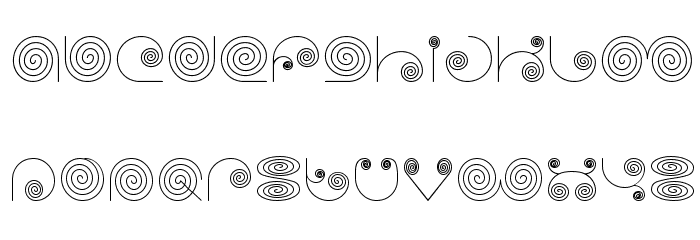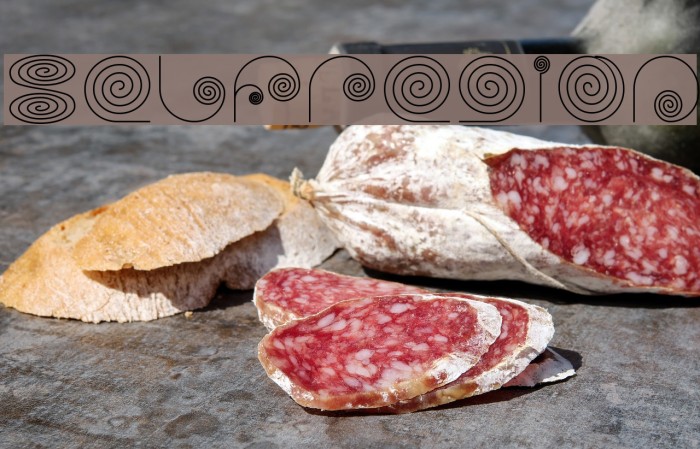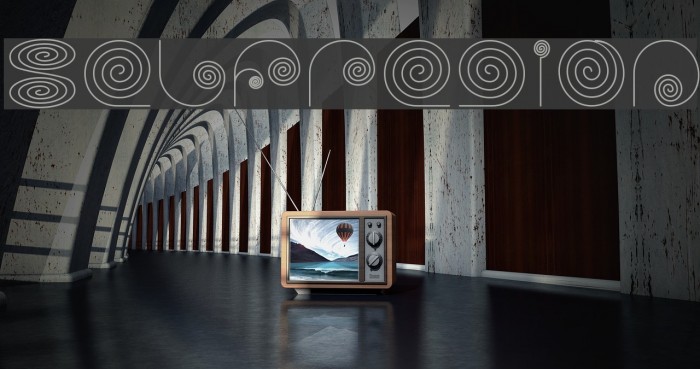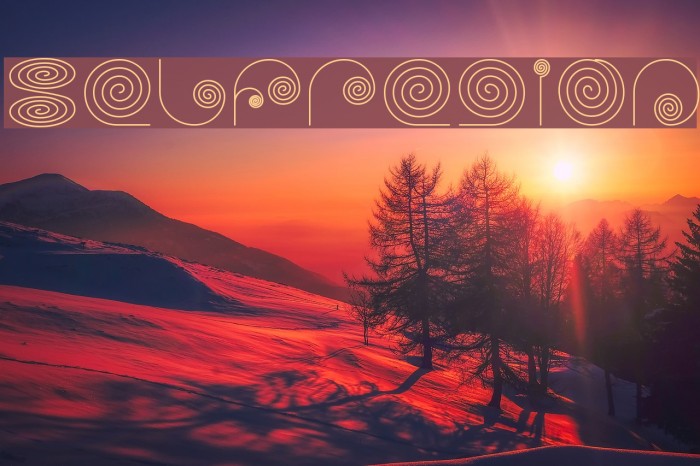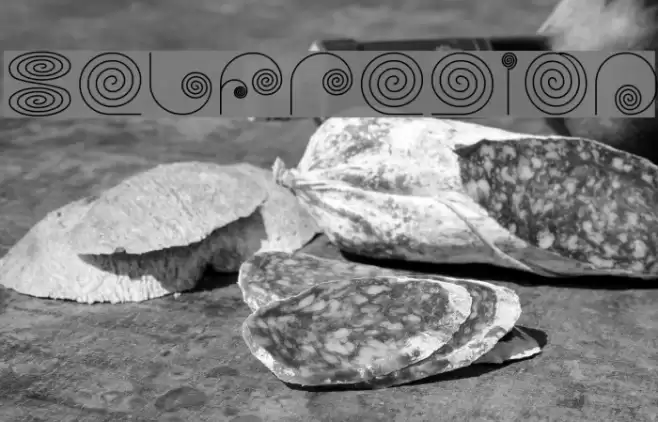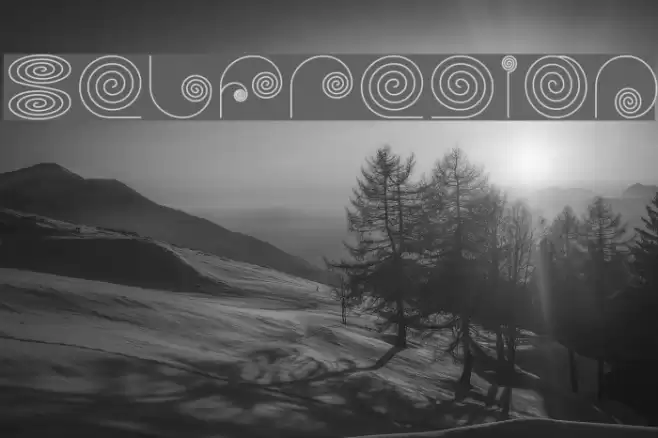
selfregion Font
This font features a unique and whimsical design characterized by intricate spiral patterns integrated into each character. The letters are crafted with a playful and artistic flair, making them stand out with their decorative swirls. The overall appearance is both captivating and unconventional, offering a distinct visual appeal that is perfect for creative projects. The font maintains a consistent line weight throughout, ensuring readability despite its elaborate style. Its imaginative design makes it suitable for projects that aim to capture attention and convey a sense of fun and creativity.
A whimsical font with intricate spiral patterns and decorative swirls.
- Proposed Projects: Ideal for creative projects such as children's book covers, playful branding, artistic posters, and unique invitations.
- Use Case: Logos, Headlines, Artistic projects